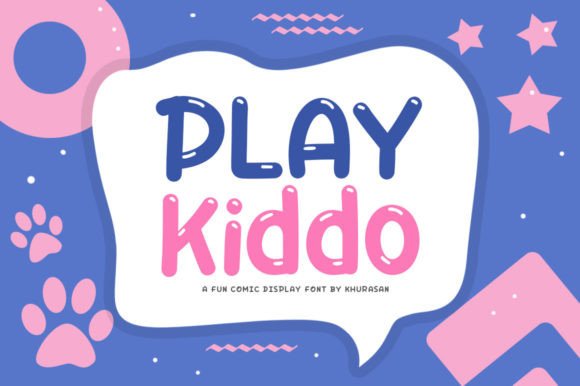
Presenting Playkiddo Font, the ultimate display font family designed to capture the hearts of little ones and grown-ups alike! This modern and whimsical font is a joyful dance of creativity, perfect for adding a dash of magic to your posters, logos, magazines, book covers, banners, and any project you can dream up.
With Playkiddo Font, you'll embark on a delightful journey of artistic expression. Its playful curves and charming characters will bring a smile to faces, making it ideal for children's posters, educational materials, and playful designs. But its versatility doesn't stop there – Playkiddo Font is equally enchanting for adult projects, adding a touch of whimsy to invitations, greeting cards, and branding.
Unleash your creativity and let Playkiddo Font transform your words into captivating visuals. Create posters that ignite imaginations, logos that exude personality, and book covers that beg to be explored. The possibilities are endless, and the visual impact is undeniable.
So why settle for ordinary when you can have extraordinary? Embrace the playful spirit of Playkiddo Font and watch your designs come to life with vibrant energy. Let your imagination run wild and create designs that touch the hearts of all who see them.